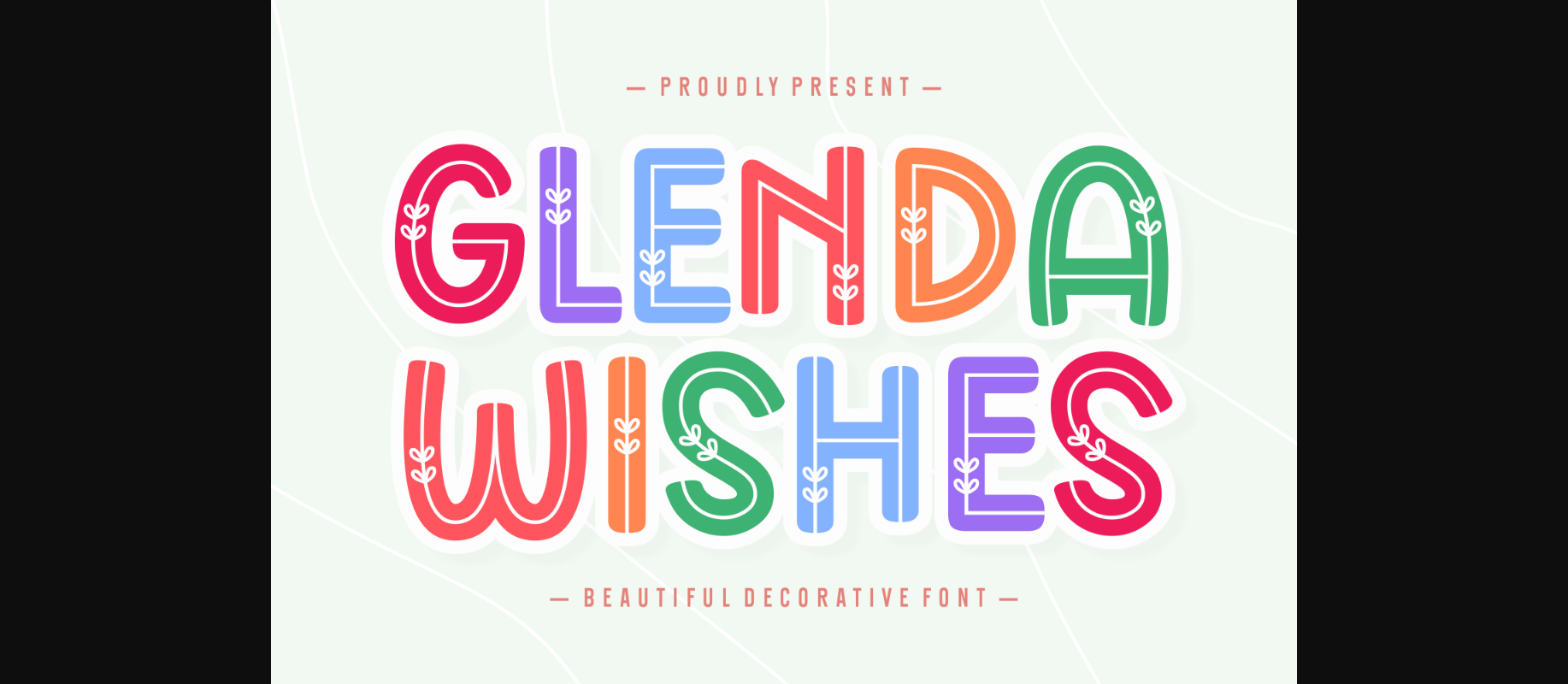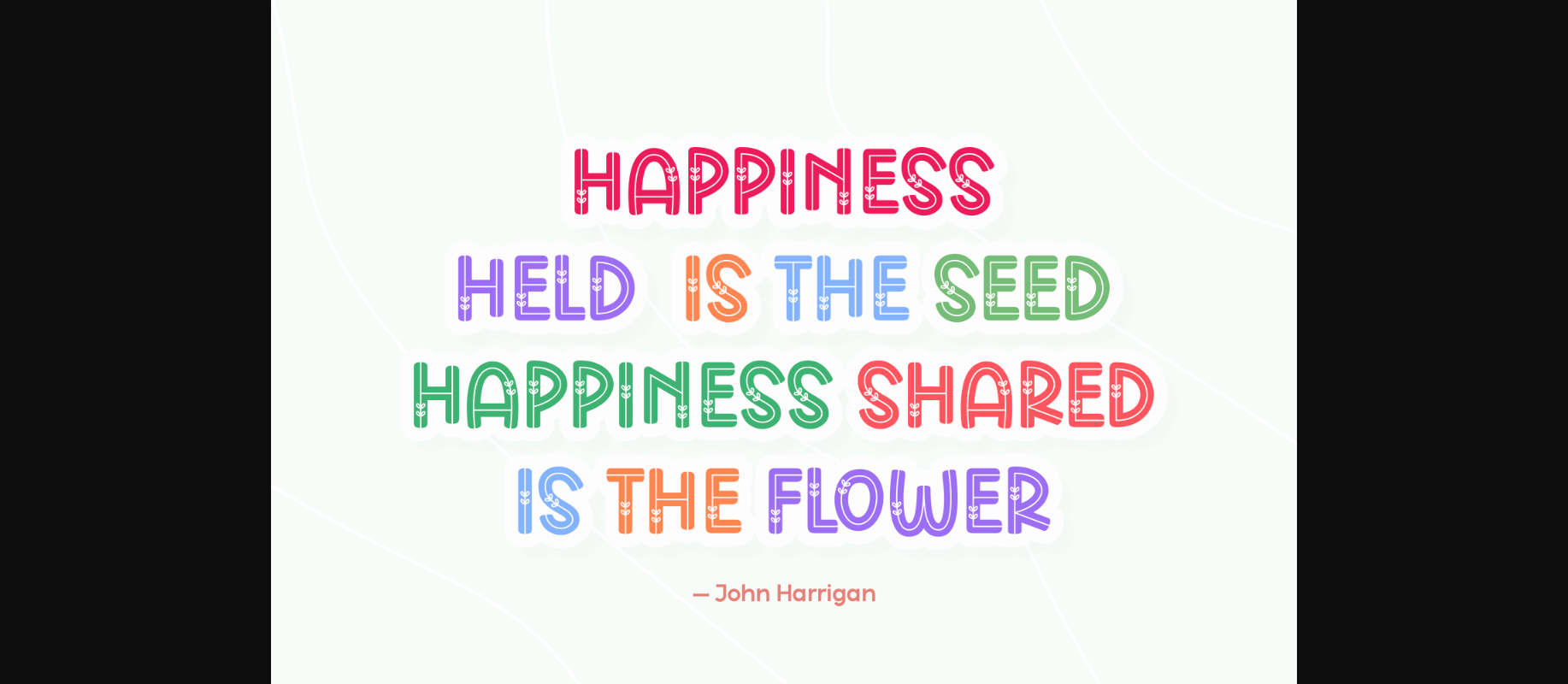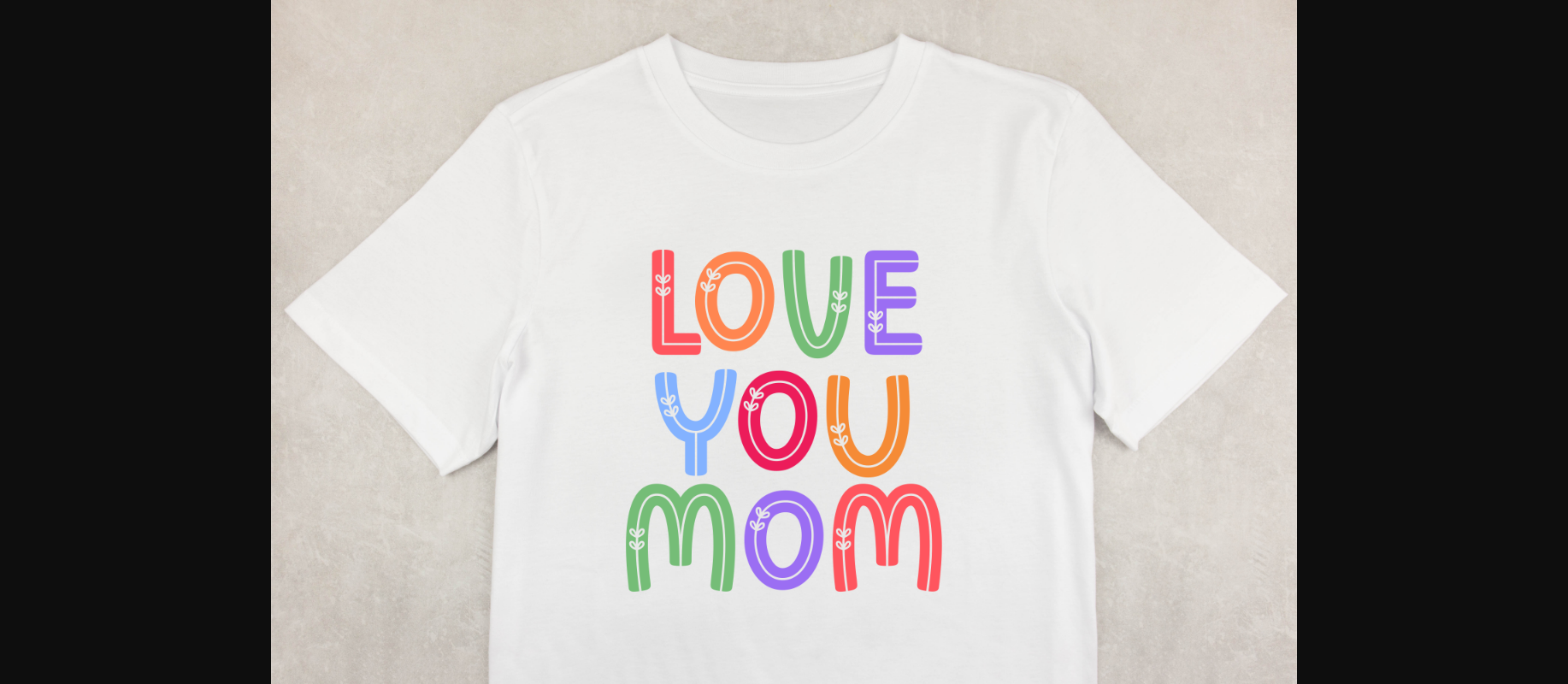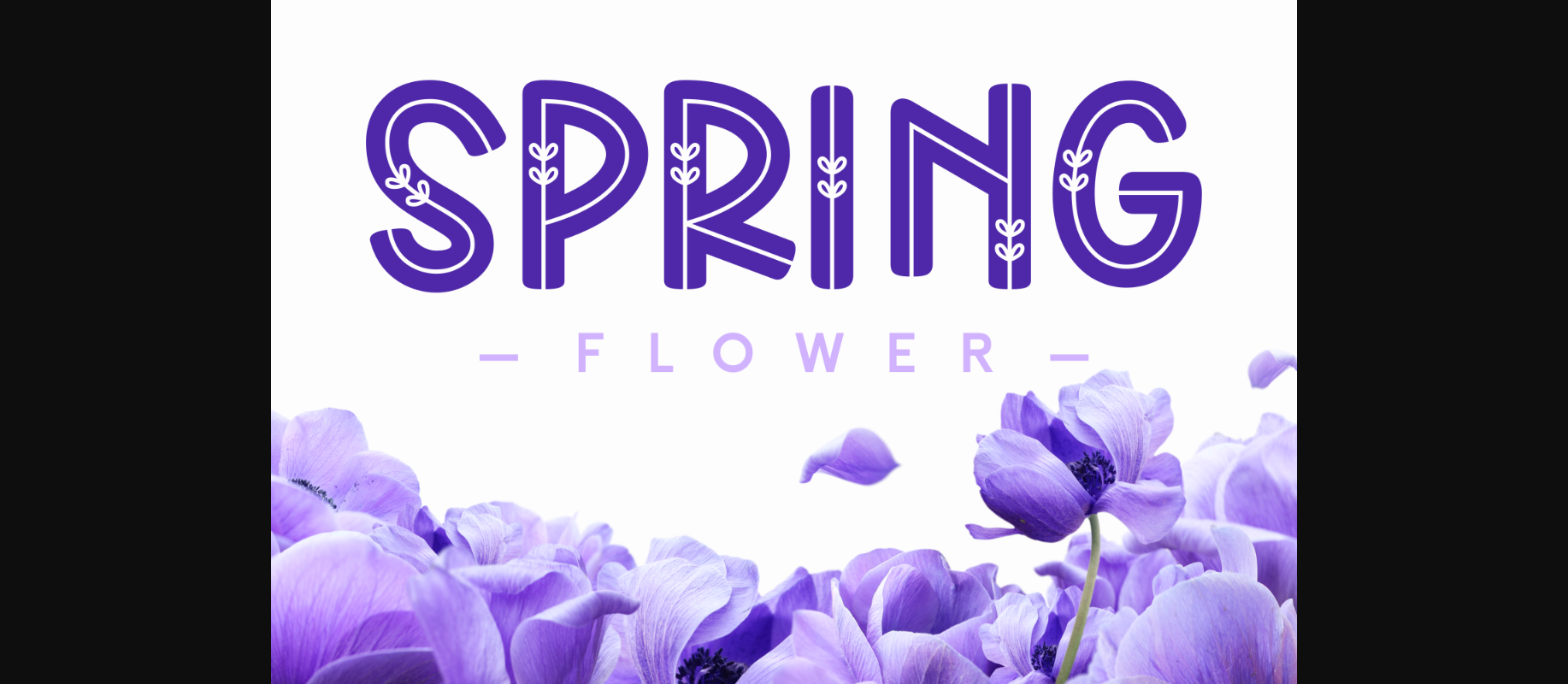
About Glenda Wishes Font
Glenda Wishes is a fancy font that adds a touch of nature-inspired charm to your text. Its decorative style features leaves intricately woven into the letters, creating a whimsical and organic feel. Perfect for giving your messages a unique and playful flair, Glenda Wishes is a delightful choice for any creative project that seeks a blend of elegance and nature-inspired design.